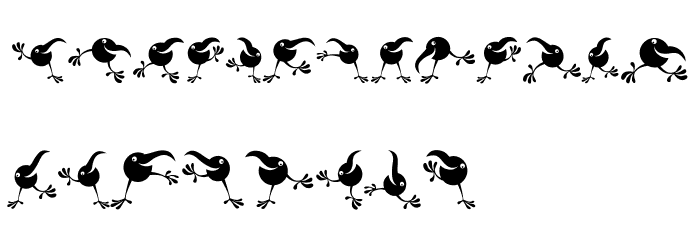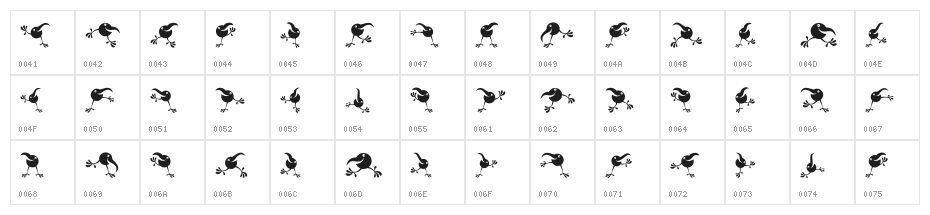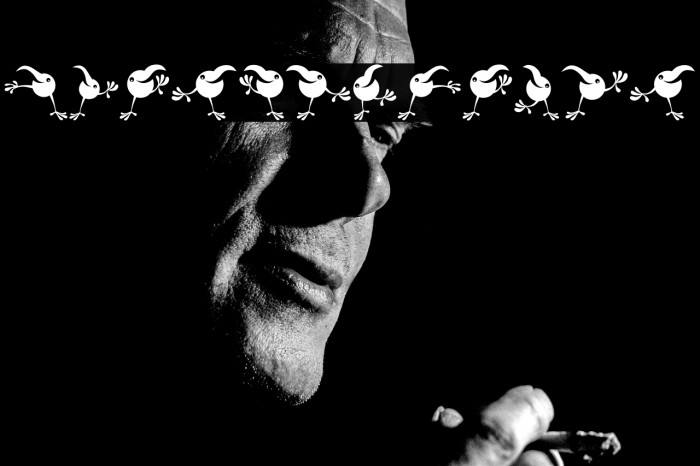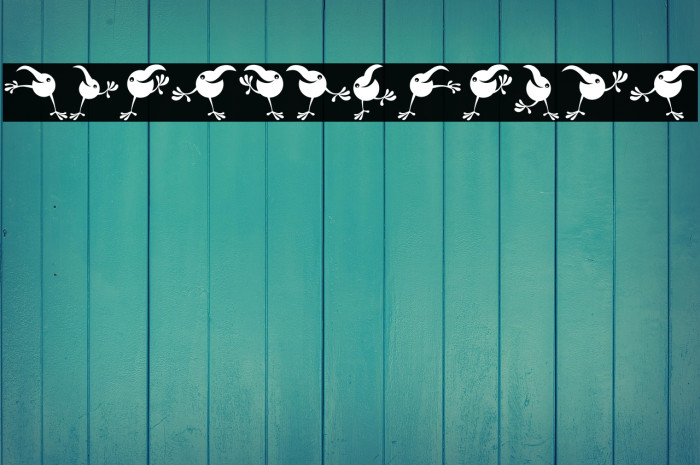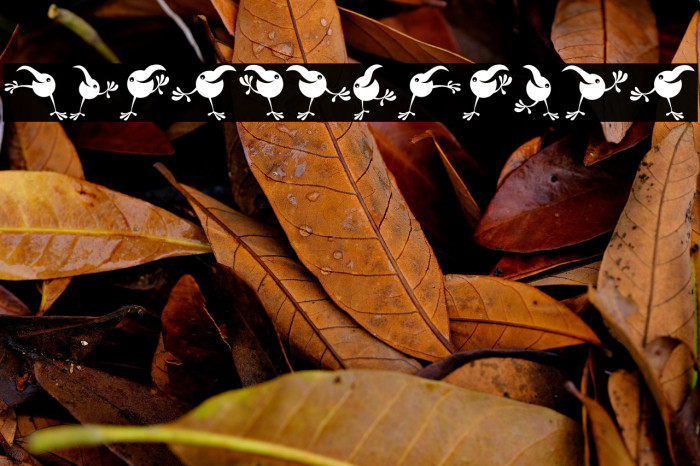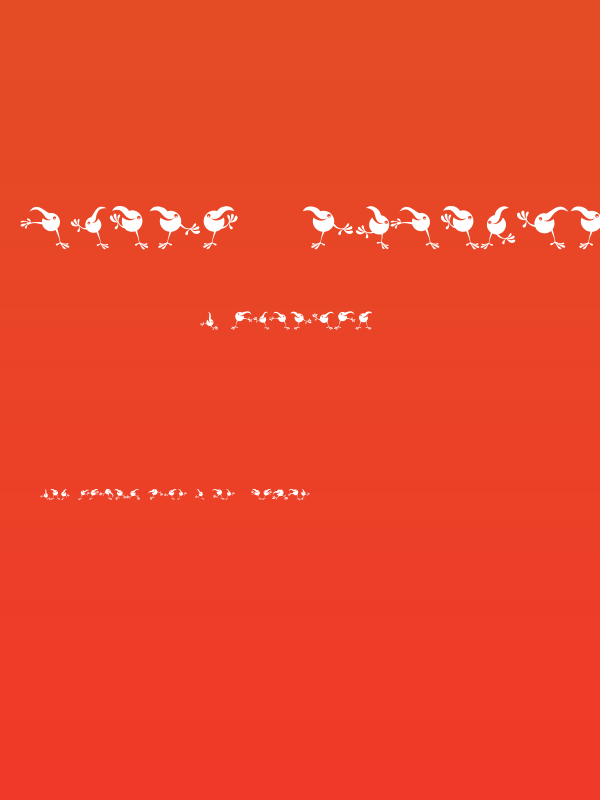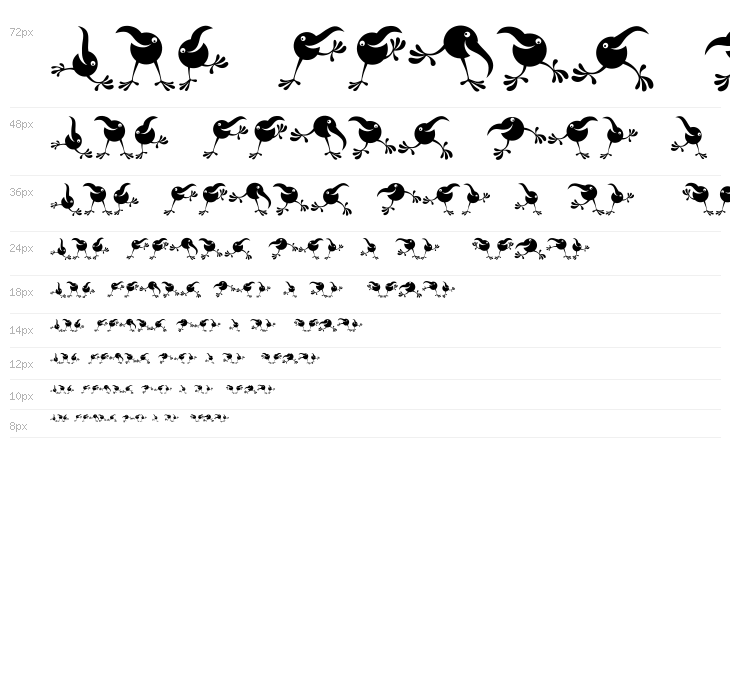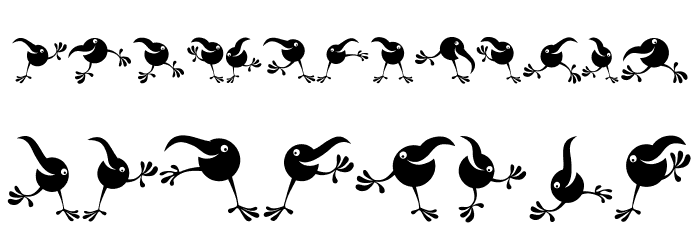
Gourdy Regular Font
This is not a valid font. The image displays a series of whimsical bird-like characters in various playful poses. Each character is unique, featuring exaggerated features such as large eyes and expressive limbs. The design is more illustrative and decorative, lacking any traditional typographic elements.
The image contains decorative bird illustrations, not a font.
• Proposed Projects: This style could be used for children's book illustrations, playful branding, or decorative art projects.
• Overall Style: Decorative
• Use Case: Illustrations, Decorative art